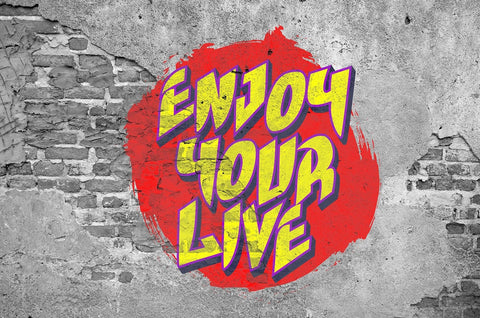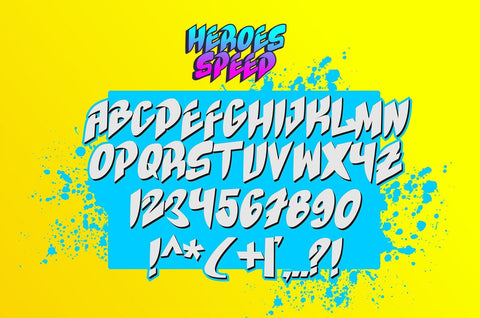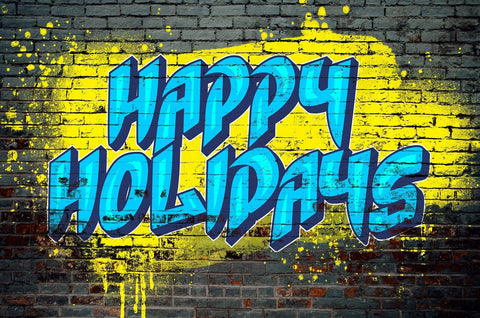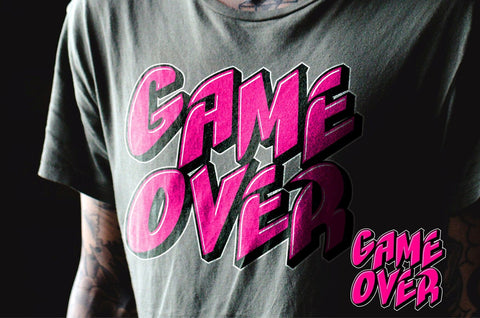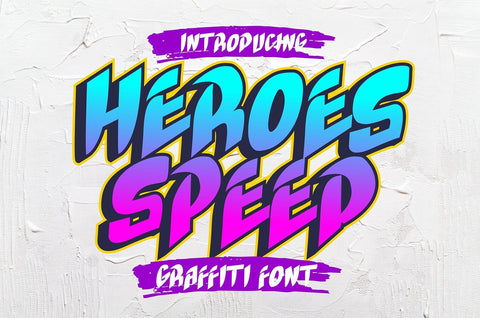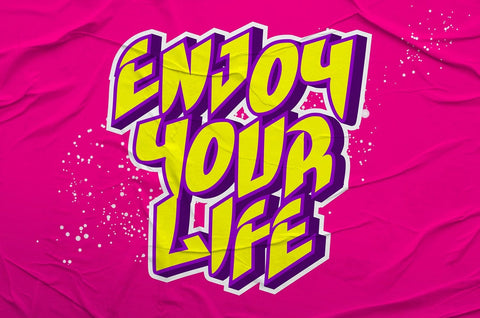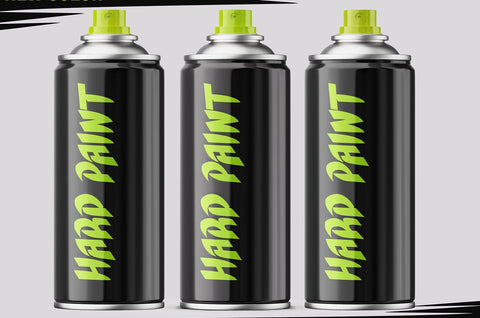
Heroes Speed - A sharp Graffiti font
Heroes Speed is a spectacular Display font with a Fatty and Cools graffiti style for your design look awesome. It will elevate a wide range of design projects to the highest level, be it branding, headings, designs, invitations, signatures, logotype, Streetwear, wall art illustration, apparel, labels, and much more!
- Graffiti Characters looks